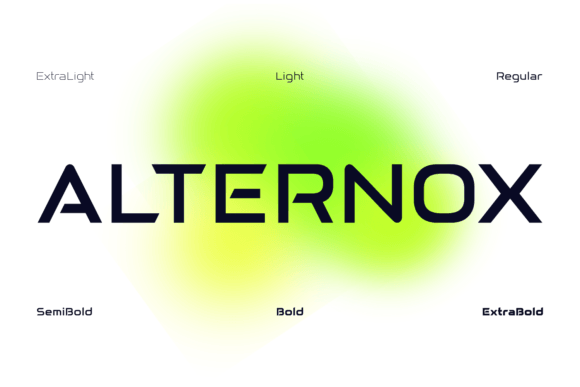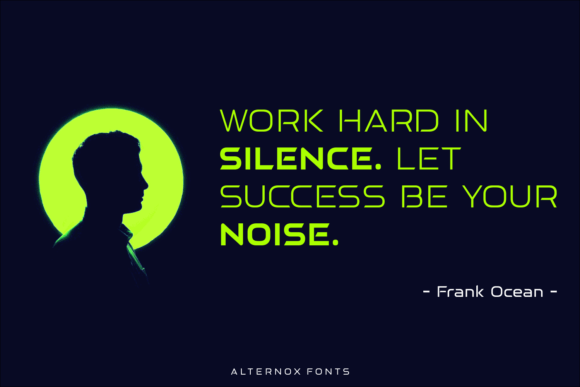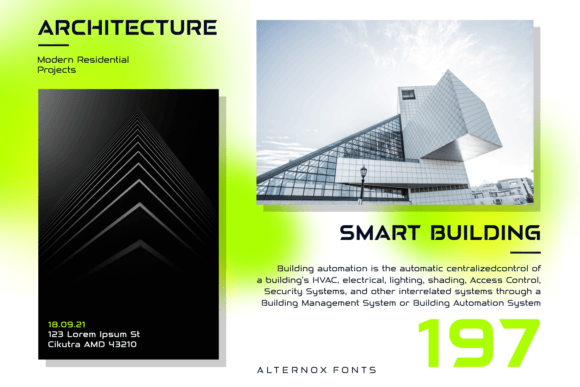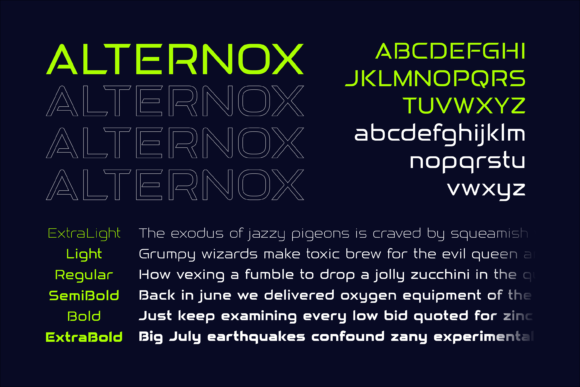
Alternox Font
Alternox fonts is a futuristic multipurpose sans serif font family with sophisticated geometric shapes. You can use it for a modern, clean and professional design. This font is perfect for your various projects such as logos and brand identity, technology, business cards, web, stationery, displays, sports, and more. Alternox is PUA encoded which means you can access all the glyphs and ligatures with ease!